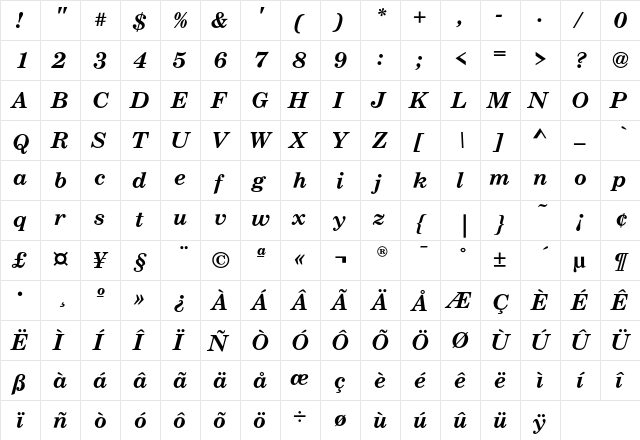
CenturySchoolbookEF BolIta Font Preview
CenturySchoolbookEF BolIta
Design Context for CenturySchoolbookEF Typeface
CenturySchoolbookEF takes a measured approach to typography — its balanced proportions and neutral character make it a reliable workhorse for both digital and print work.